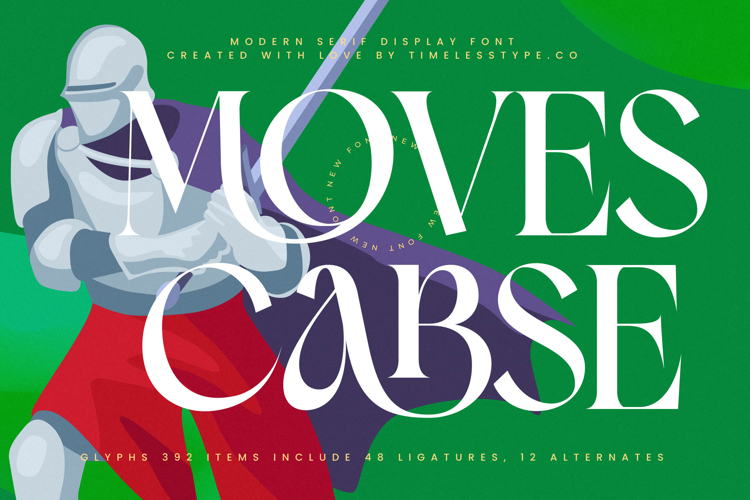
Moves Cabse - Modern Serif Display Font
Moves Carse is a modern serif display font that combines bold sophistication with elegant details, making it perfect for projects that require impact and refinement. With its tall letterforms, sharp serifs, and graceful curves, this typeface strikes a balance between classic style and contemporary boldness. Featuring 48 ligatures, 12 alternates, and 392 total glyphs, Moves Carse provides designers with creative flexibility to build expressive, stylish, and distinctive typography.
This font is designed to excel in headline typography, where its bold stature and refined details make an immediate statement across posters, banners, and editorial layouts. In branding and logo design, Moves Carse communicates prestige and confidence, making it a strong choice for luxury products, fashion labels, lifestyle brands, and boutique businesses seeking a premium identity. Its versatility also makes it ideal for packaging design, particularly for perfumes, wine, gourmet goods, and artisanal products, where elegance and uniqueness are essential.
Moves Carse also thrives in advertising campaigns, event promotions, and social media graphics, where its ligatures and alternates provide variety and flair that elevate storytelling. For editorial spreads, certificates, and lifestyle branding, it brings authority and artistic charm, ensuring typography becomes a central design feature.
With multilingual support, Moves Carse adapts seamlessly to global markets, making it suitable for international design projects across diverse industries.
Ultimately, Moves Carse is more than a display serif—it is a visual tool of elegance, strength, and style. Whether used for editorials, branding, packaging, advertising, or digital platforms, it ensures every project radiates sophistication and unforgettable impact.